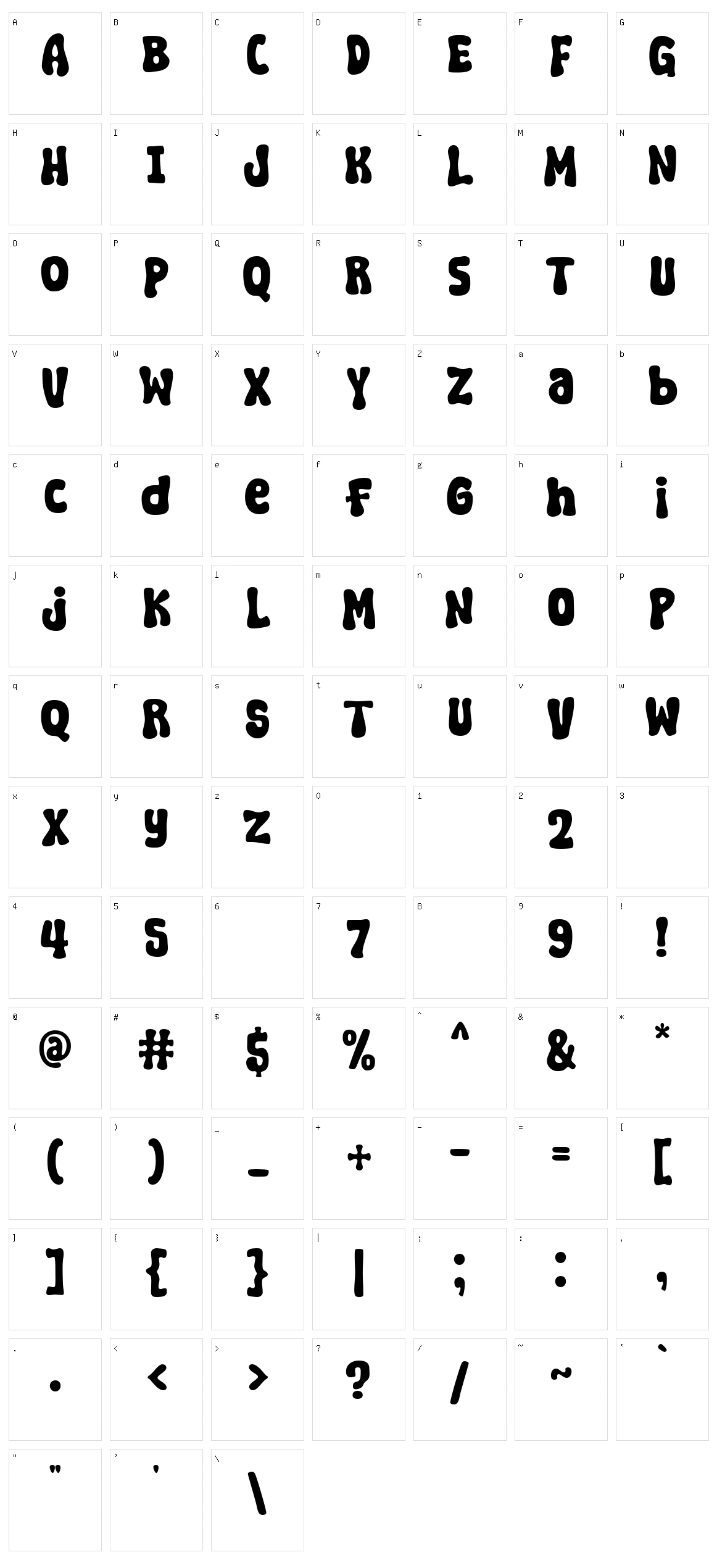
Super Quench: A Font Full of Fun and Fizz!
Super Quench is a font that explodes with personality, playfully combining the bubbly charm of a classic bubble font with the bold impact of a strong, eye-catching design. It's perfect for adding a touch of whimsy and energy to your projects, whether it's a playful logo, a vibrant website header, or a quirky social media post